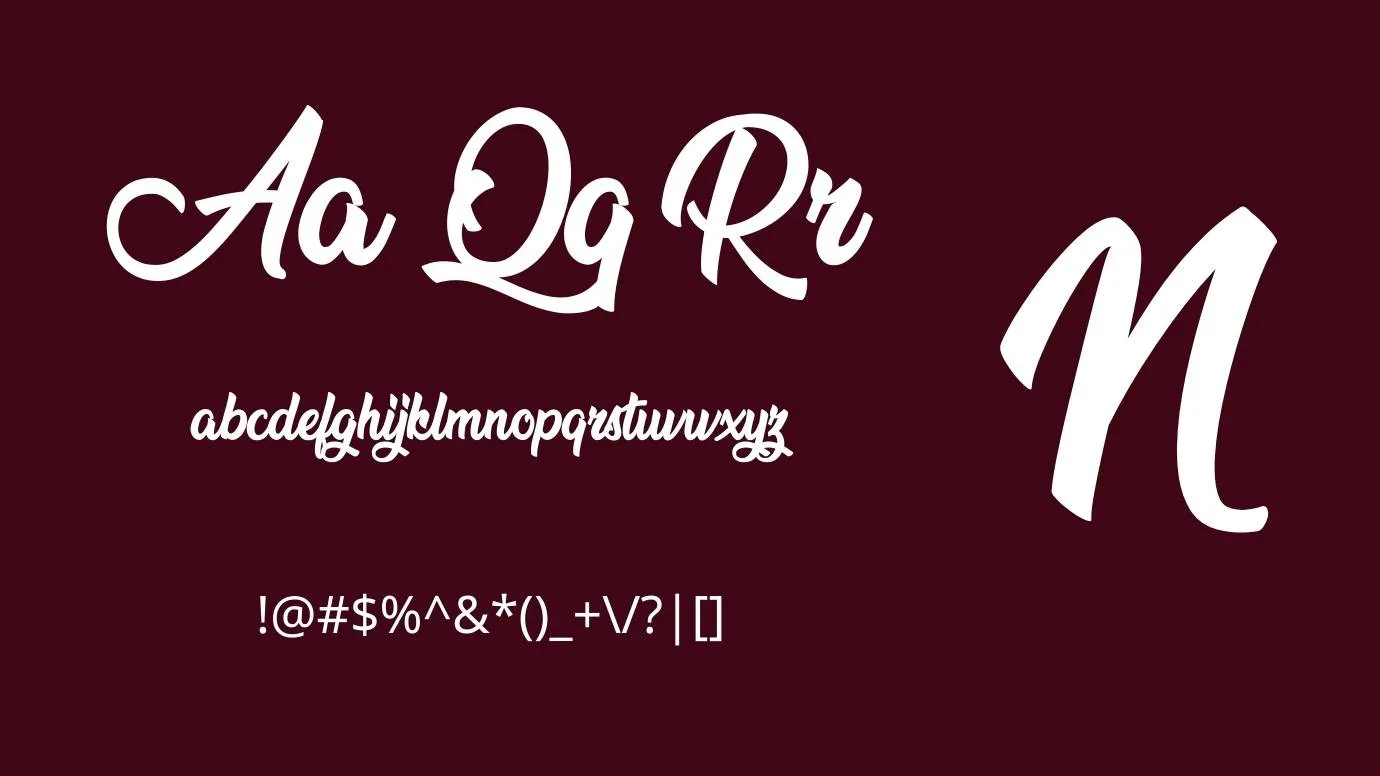
Nature Beauty Font Free Download
Nature Beauty font is a very amazing script-type calligraphy font. This amazing font was designed by Billy Argel. It was launched in 2017. You can use this font for personal and commercial projects.
This font also has 322 characters, 286 glyphs, and 1000 units per Em. You can also use this font for pairing with other fonts such as engagement font to give a more elegant look to your projects.